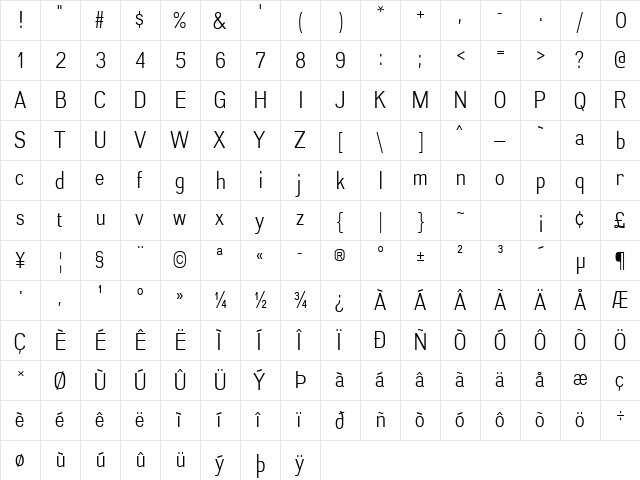
Akazan Book
Design Context for Akazan Typeface
Akazan is a composed and adaptable typeface that performs quietly and consistently across a wide range of design contexts.
Pro Tip: Pair Akazan with a font of contrasting weight or personality to build a more expressive typographic hierarchy.